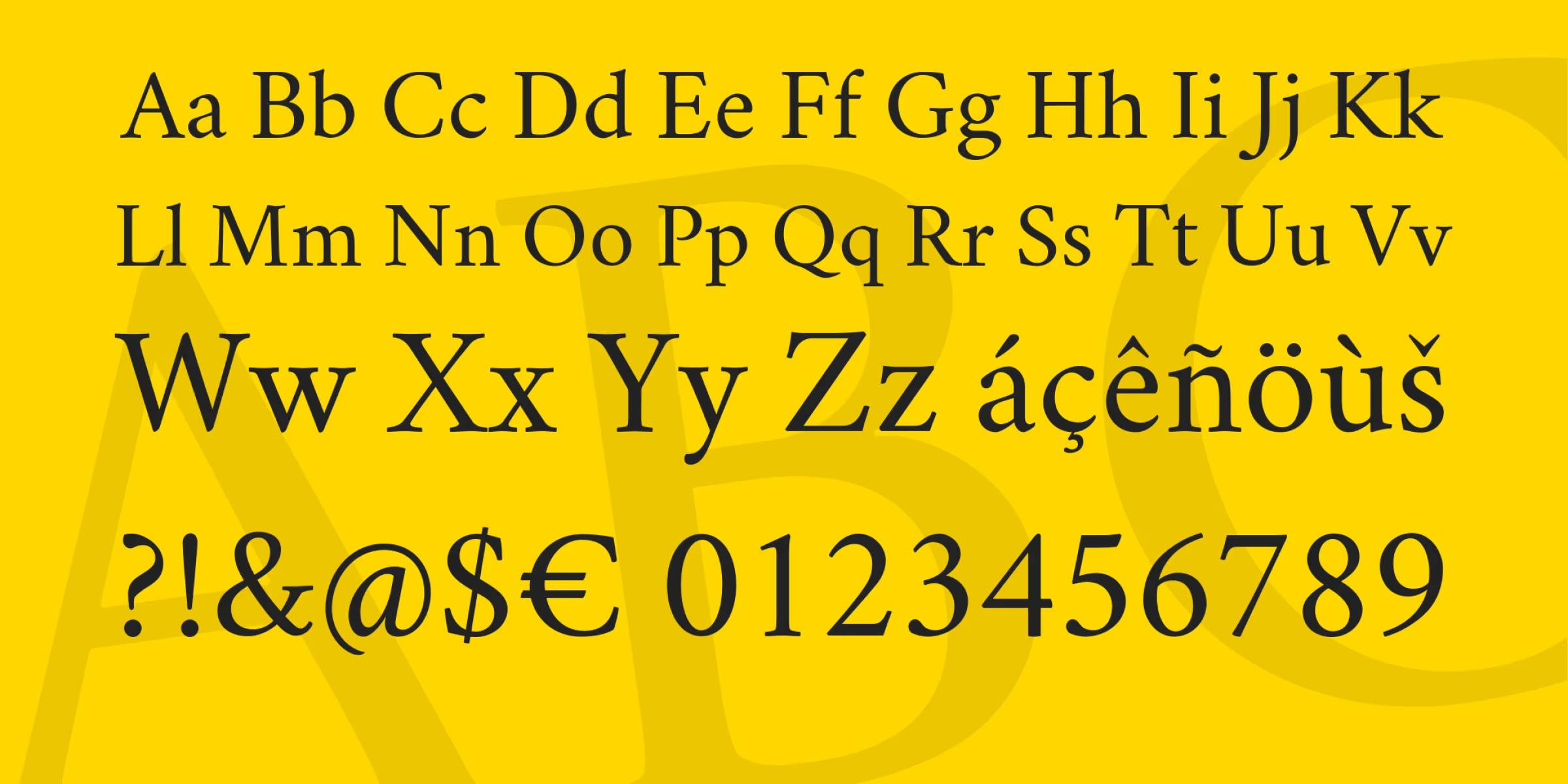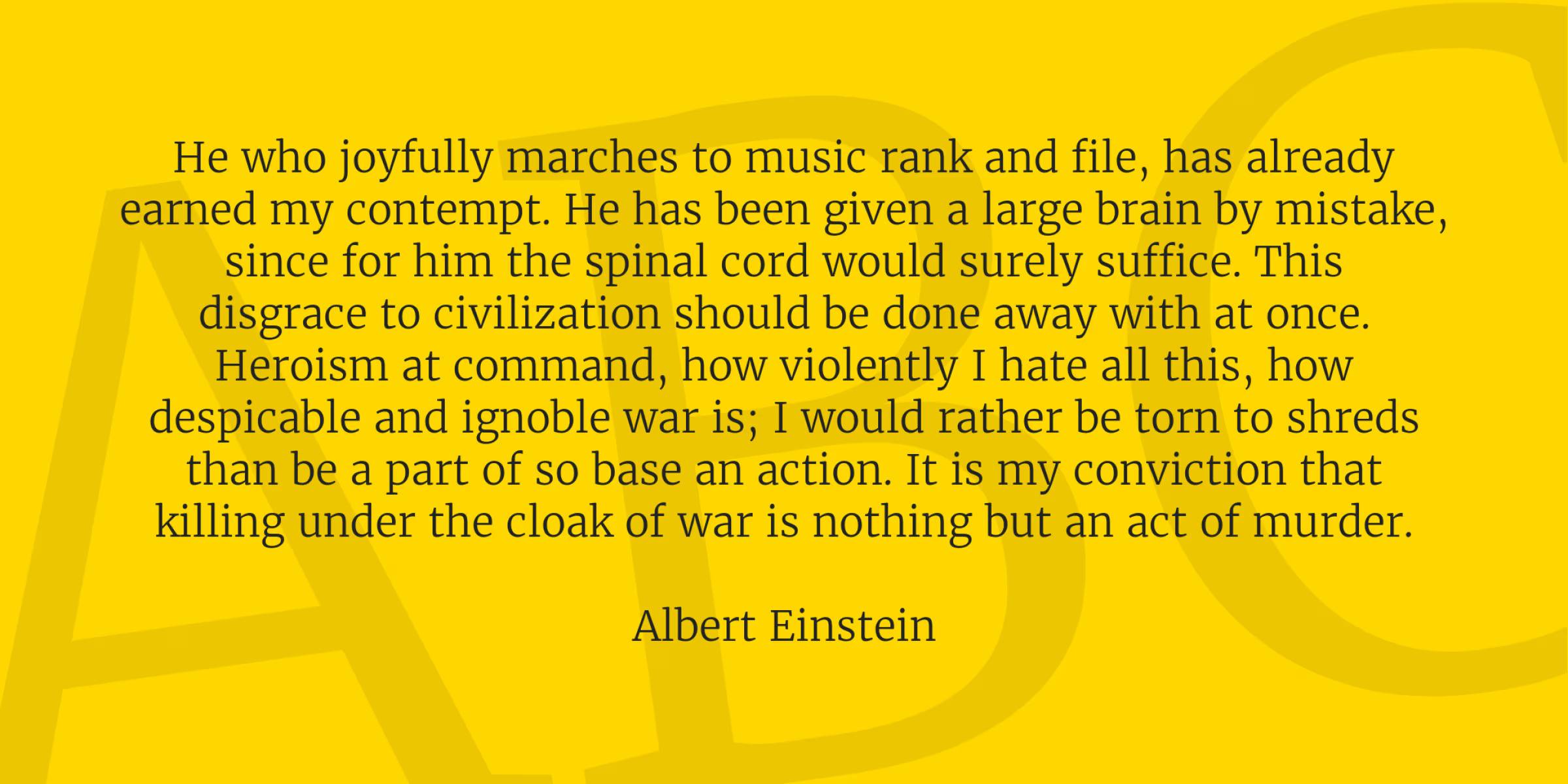
When it comes to typography, serif fonts exude elegance, sophistication, and readability. Whether you’re working on a branding project, designing a website, or creating a presentation, choosing the right serif font can make all the difference.
The best part? You don’t have to spend a dime. Serif fonts have long been a staple in classic and modern design.
Their refined and sophisticated appearance make s them a top choice for branding, web design, book covers, and editorial layouts. But finding high-quality serif fonts for free can be tricky.
Whether you’re a designer, blogger, or business owner, these fonts will add a touch of elegance to your projects.
Why Use Serif Fonts?
Serif fonts are often associated with tradition, reliability, and professionalism. Their distinct strokes at the ends of letters create a sense of refinement and make reading easier, especially in printed materials.
Unlike sans-serif fonts, which are modern and minimalistic, serif fonts add personality and a touch of sophistication to any design.
Using serif fonts can enhance readability, particularly for long texts. This is why newspapers, books, and official documents frequently use serif typefaces.
They also work exceptionally well in branding, as they help establish trust and convey a sense of authority.
Whether you are designing for print or digital media, serif fonts can help elevate the aesthetic appeal of your work.
Additionally, serif fonts often evoke a sense of history and craftsmanship, making them an excellent choice for luxury branding, formal invitations, and professional correspondence.
1. Cormorant
An Elegant and Artistic Typeface
Cormorant is a beautifully designed serif font that exudes sophistication. With its high contrast and refined strokes, it’s perfect for elegant branding, book covers, and luxury designs. It comes in multiple weights, giving you plenty of flexibility.
Its striking elegance makes it an excellent choice for high-end design projects that demand an air of refinement. The variety of styles available allows designers to experiment with different tones, from bold and modern to delicate and classic.
For web typography, Cormorant delivers a polished look that enhances readability while maintaining a luxurious feel, making it perfect for minimalist websites.
- Best for: Editorial & book design, high-end branding, minimalist websites
2. Libre Baskerville
A Modern Take on a Timeless Classic
If you need a reliable serif font with a classic appeal, Libre Baskerville is a fantastic option. It’s optimized for digital screens, ensuring clear readability while maintaining a timeless look. Its balanced letterforms make it ideal for long-form reading.
As a refined and professional typeface, Libre Baskerville is widely used for body text in blogs, business websites, and corporate reports. It has a generous x-height, which improves legibility, making it a strong contender for web design.
Additionally, its crisp and formal appearance works well for businesses looking to establish credibility. Whether used for print or digital, Libre Baskerville offers a perfect blend of tradition and modernity.
- Best for: Website body text, blog posts & articles, corporate branding
3.Playfair Display
- A Classic and Stylish Typeface
- Inspired by classic 18th-century typefaces, Playfair Display features a strong contrast between thick and thin strokes, making it a great choice for stylish headlines and elegant typography. It brings a touch of luxury to any design project.
- The font’s graceful letterforms work beautifully in fashion and wedding-related designs, adding a sense of exclusivity. Its old-style charm mixed with modern digital optimizations ensures that it looks stunning on both print and digital platforms.
- Playfair Display pairs well with sans-serif body text, creating a balanced visual hierarchy that improves readability while adding a sophisticated touch to websites, magazines, and elegant branding materials.
- Best for: Wedding invitations, fashion magazines, elegant web typography
4. Lora
A Contemporary Serif with a Personal Touch
Lora is a well-balanced serif font with a contemporary feel. Its slightly curved strokes give it a touch of warmth, making it an excellent choice for storytelling and elegant brand identity. It is equally effective in print and digital designs.
The organic letterforms provide a natural and sophisticated aesthetic, which makes it ideal for creative content. Its moderate contrast enhances the beauty of long-form text while keeping it highly readable.
Lora works exceptionally well in editorial layouts, blogs, and social media graphics, where an elegant yet modern approach is needed to captivate readers.
By incorporating these fonts into your design toolkit, you can ensure a sophisticated and timeless appeal in all your creative projects.
Each font on this list brings something unique to the table, making it easier to match the perfect typeface with your specific design requirements.
Serif fonts continue to be a favorite among designers because of their classic yet versatile nature.
Whether you’re aiming for a luxurious feel, a professional edge, or a modern touch, there’s a font in this list that will work for you.